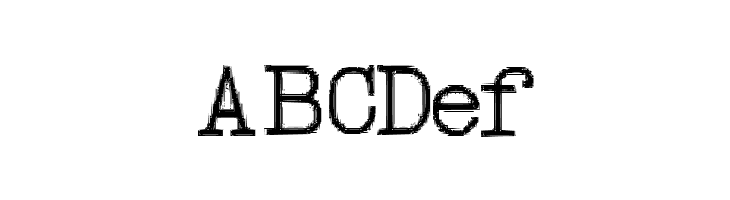
Virgule Medium Font
- Font: Virgule Medium
( Fonts by Johan Holmdahl - www.free-typewriter-fonts.com )
A vintage typewriter-style font with a textured, monospaced design.